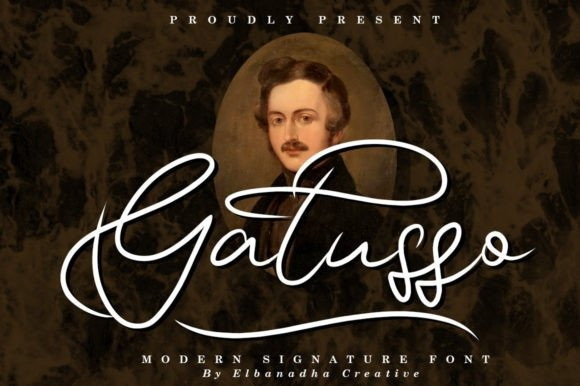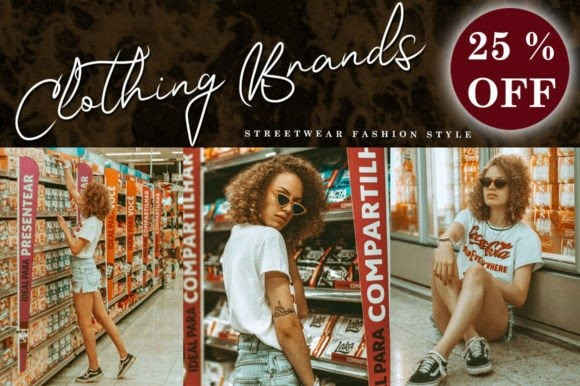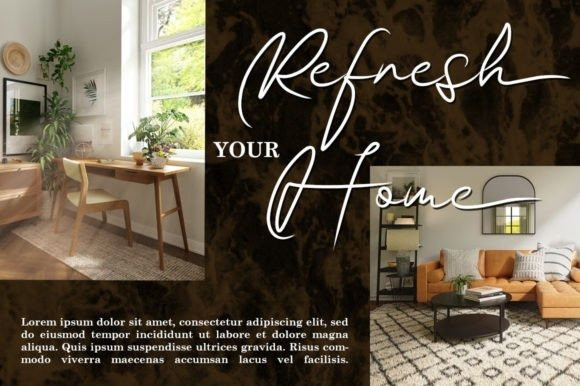
Gatusso Font
Gatusso is a beautiful and light handwritten font with a unique feel and a stunning impact. It will add a luxury spark to any design project that you wish to create!